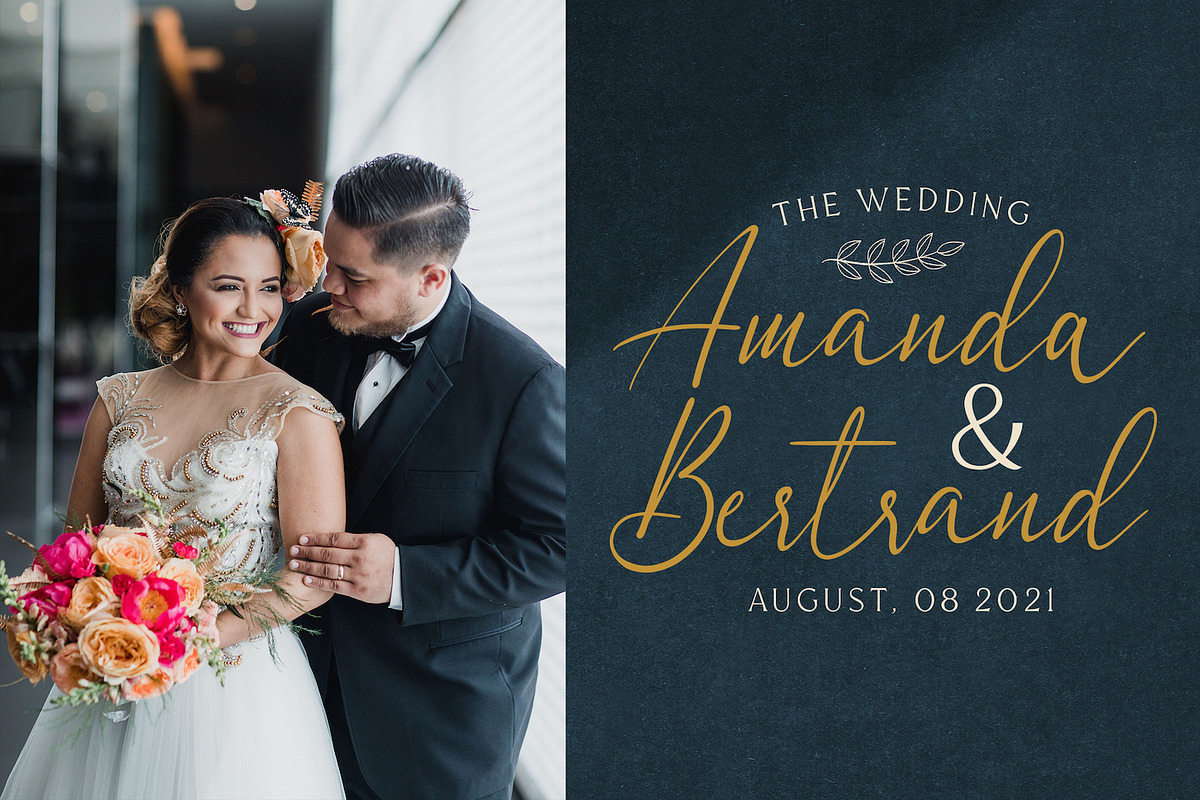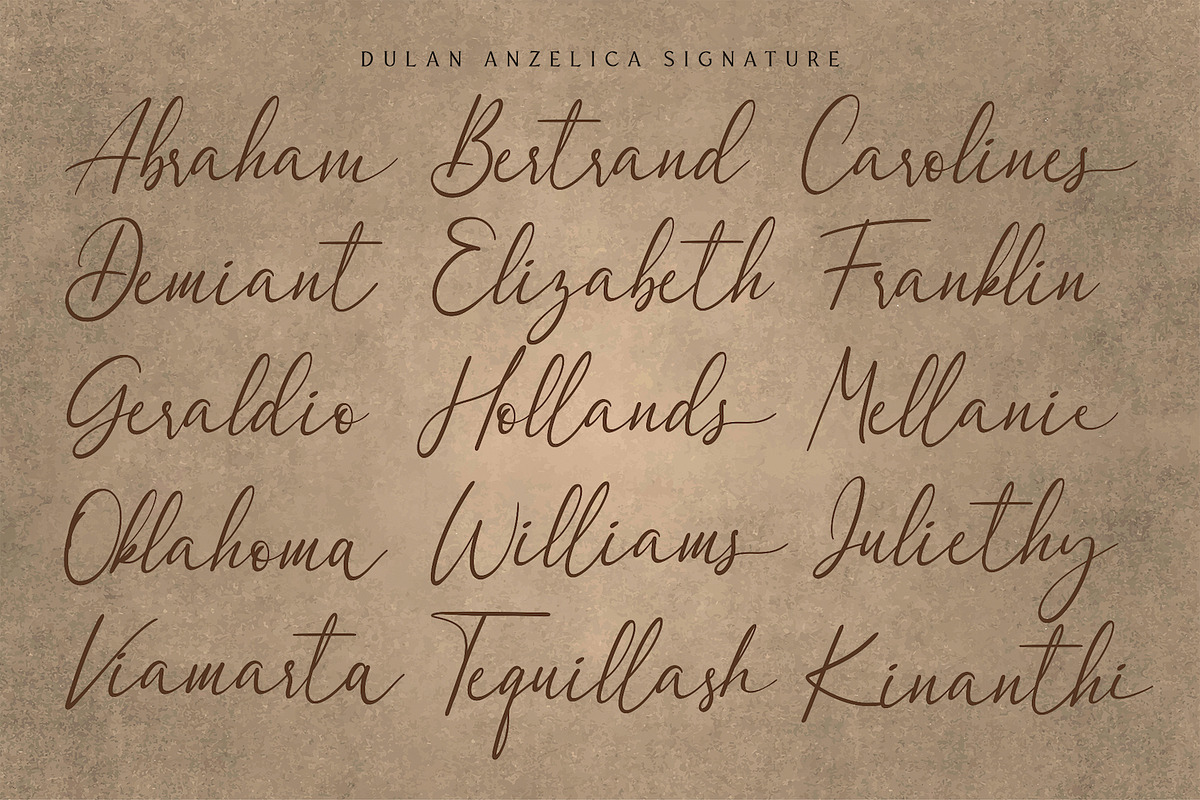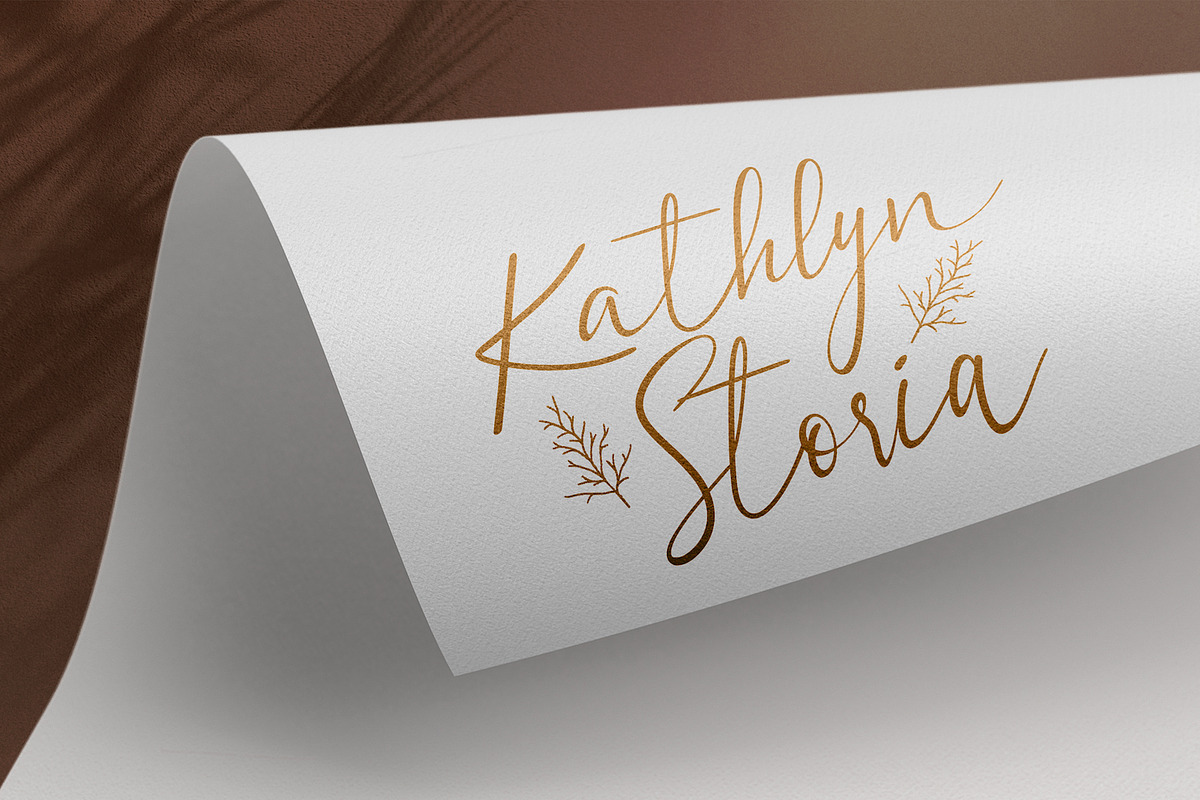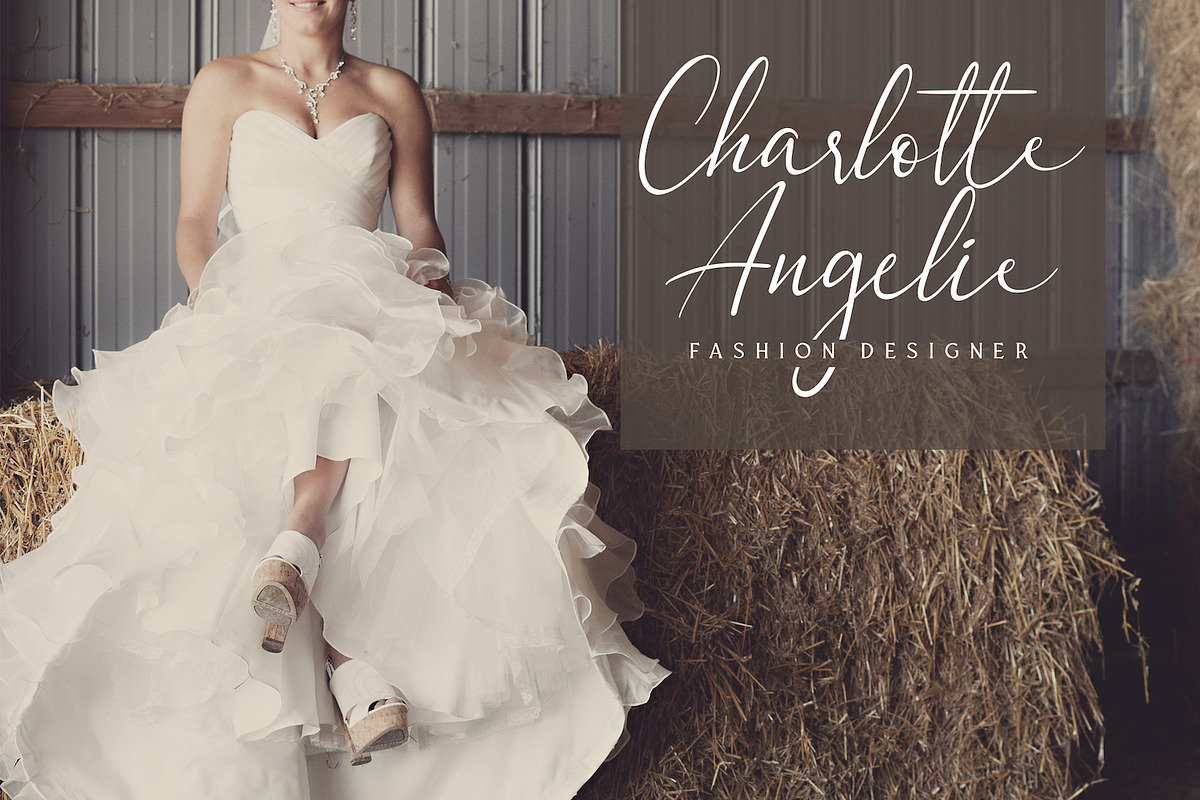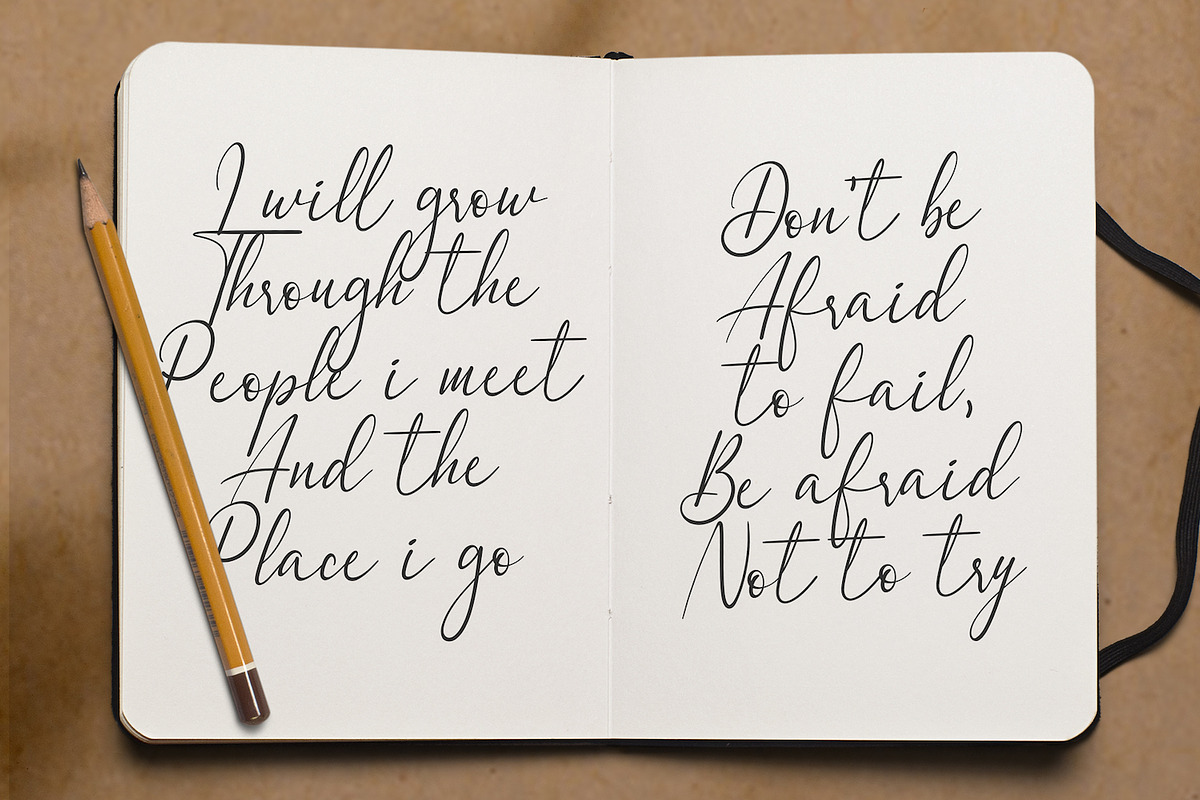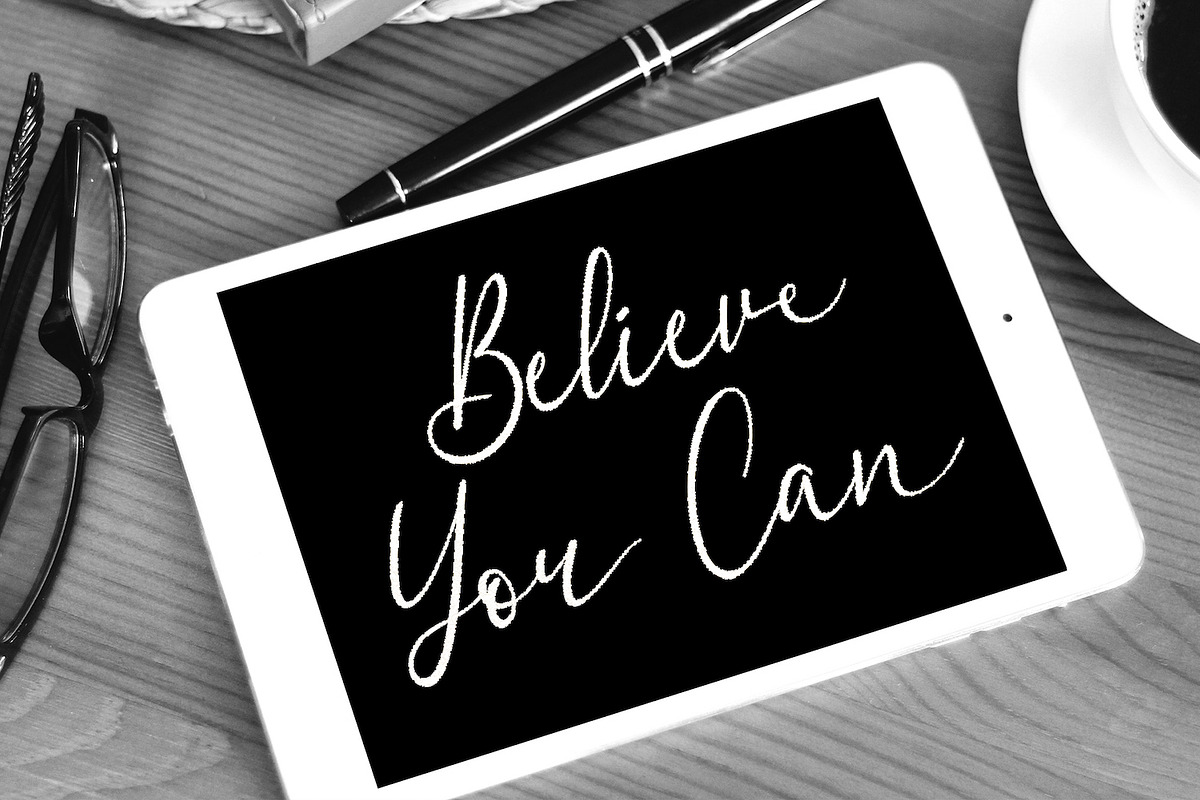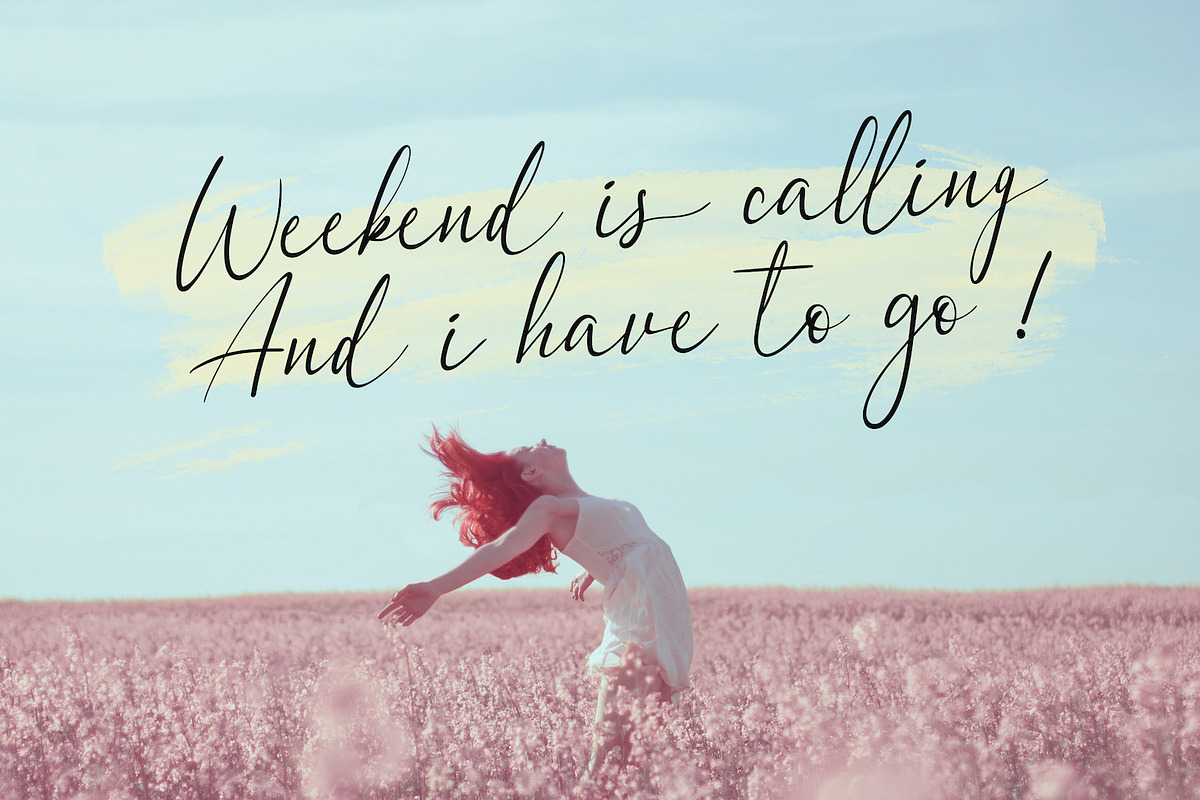
Dulan Anzelica - Signature Font
Introducing Dulan Anzelica - Signature Script Font
Dulan Anzelica is a Modern Signature Script Font with Handwritten Style. This font is perfect for fashion brand, wedding invitation, business card, logo brand, signature, and also for calligraphy purpose.
- This Font Template contains Classy, Elegant, Creative, Cool and has a Unique Concept.
Why Dulan Anzelica - Signature Font is worth a look
Dulan Anzelica - Signature Font by StringLabs fits naturally into Branding, posters, packaging, typography.